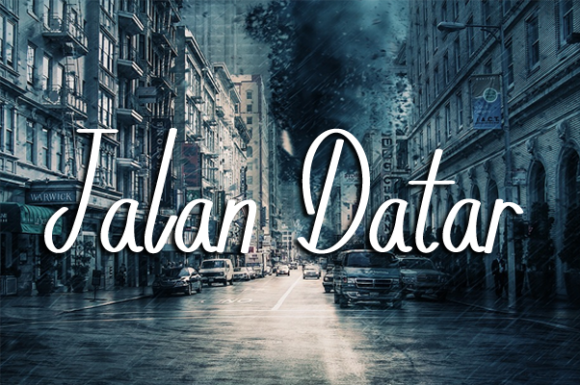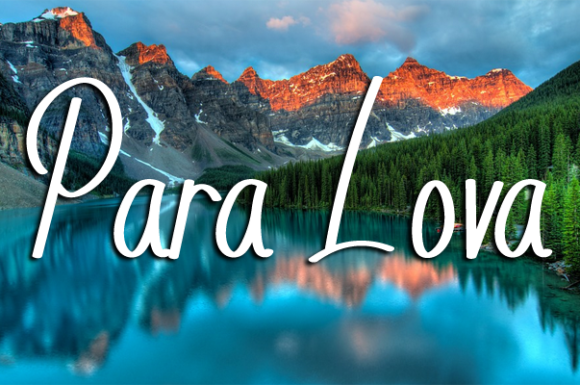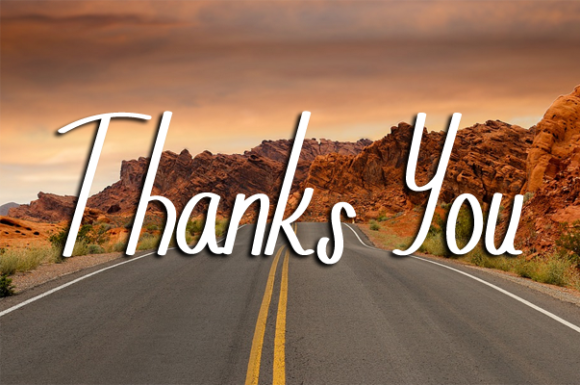
Sugar Daddy Font
About Sugar Daddy Font
Sugar Daddy is a unique and elegant handwritten font. It looks beautiful on a variety of designs requiring a personalized style, such as wedding invitations, thank you cards, weddings, greeting cards, logos and so on.